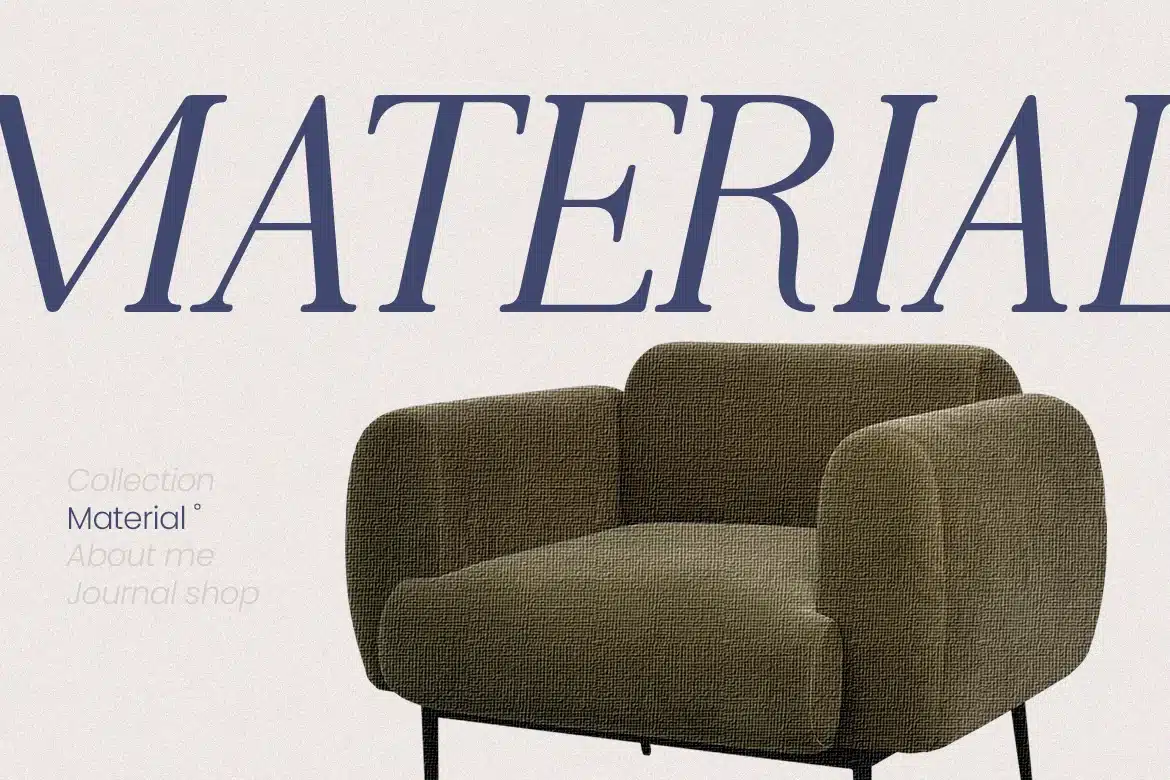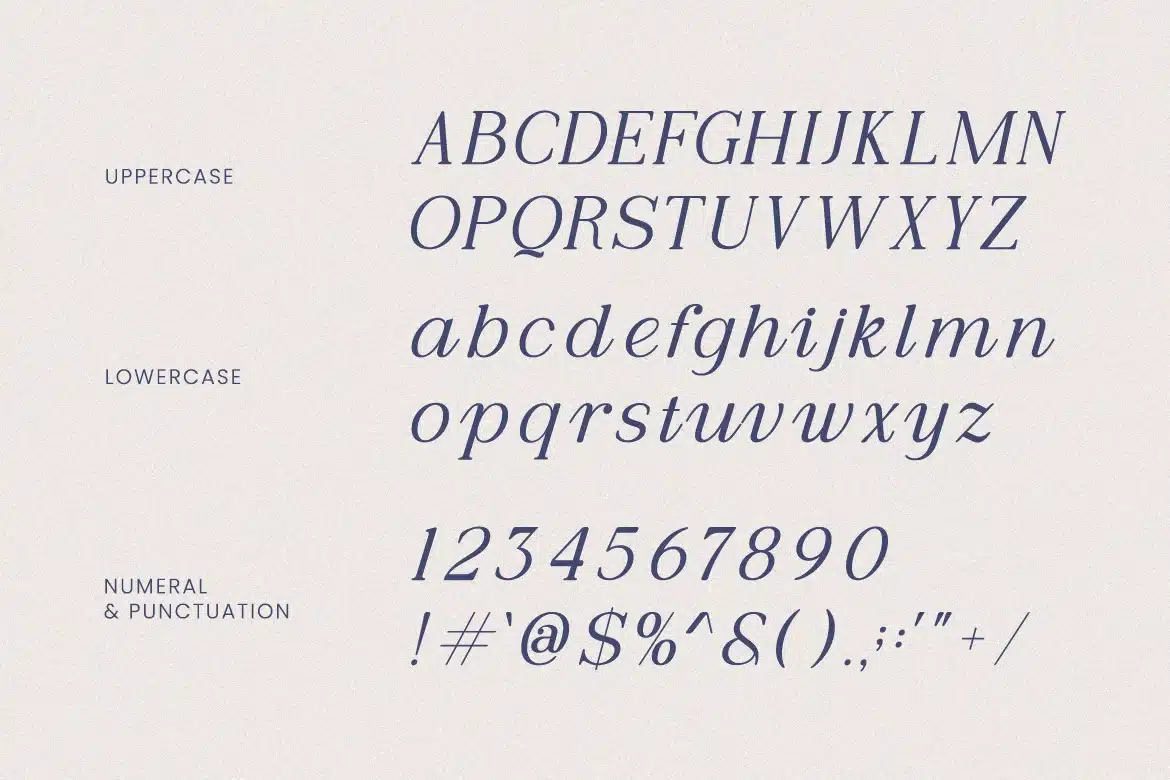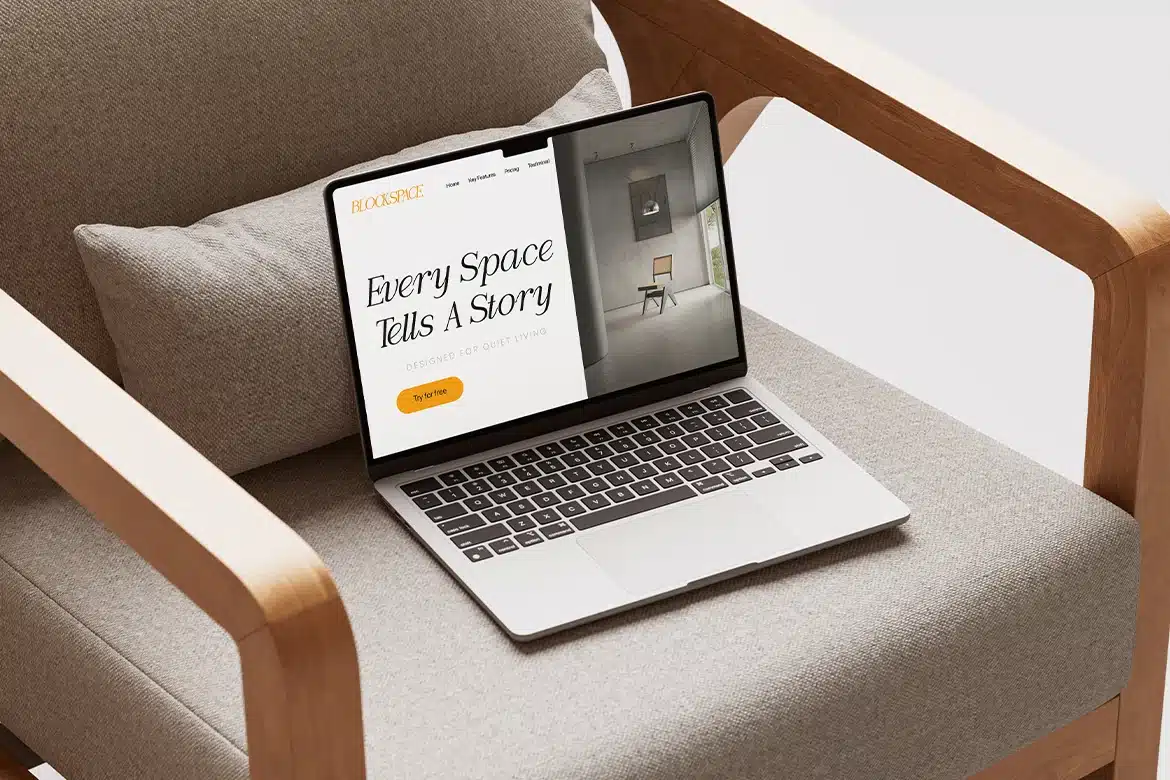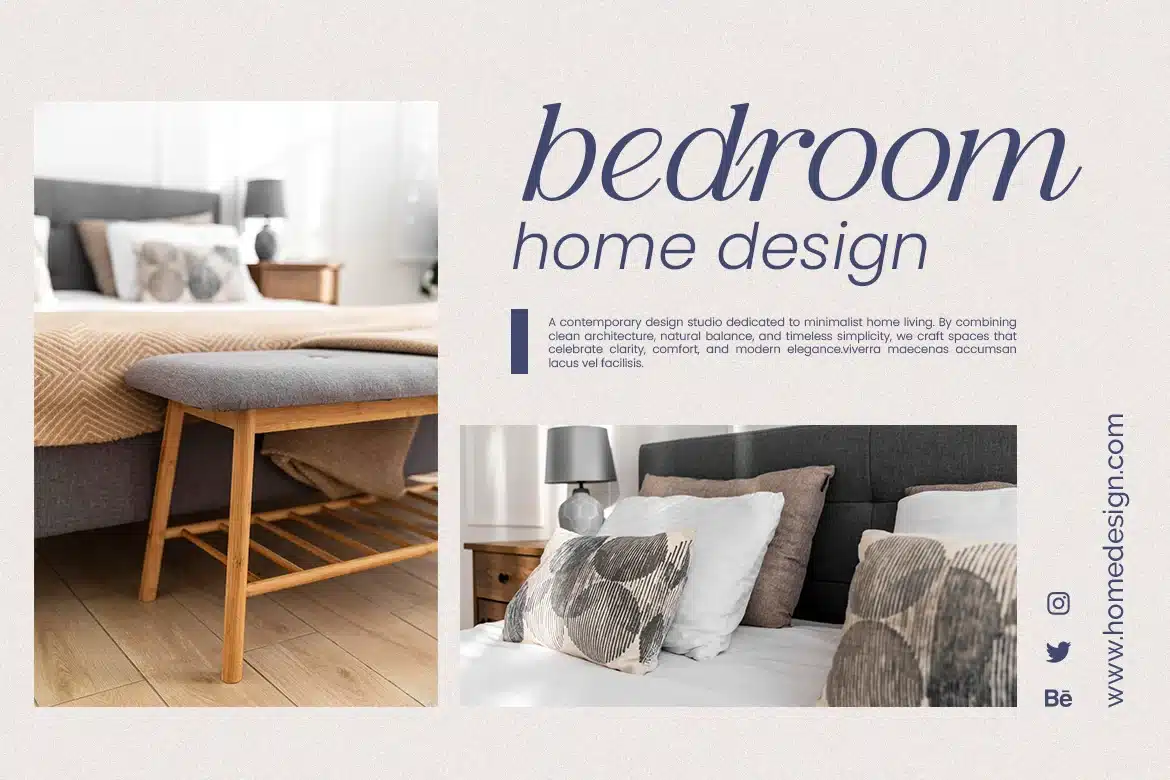
Virelune Luxury Serif Font
Virelune presents a refined modern serif with elegant proportions, delicate curves, and striking contrast. Its design reflects a contemporary editorial style while maintaining a timeless and graceful character. The typeface includes uppercase, lowercase, numerals, punctuation, and multilingual support for versatile use across various design needs. Carefully crafted for clarity and visual balance, it works seamlessly across branding, editorial layouts, and premium visual compositions.
Relevance and Use Cases is perfect for luxury branding, editorial design, and high-end visual communication that requires elegance and clarity. It performs exceptionally well in fashion magazines, logo design, premium packaging, and marketing materials where a refined and modern serif presence is essential.